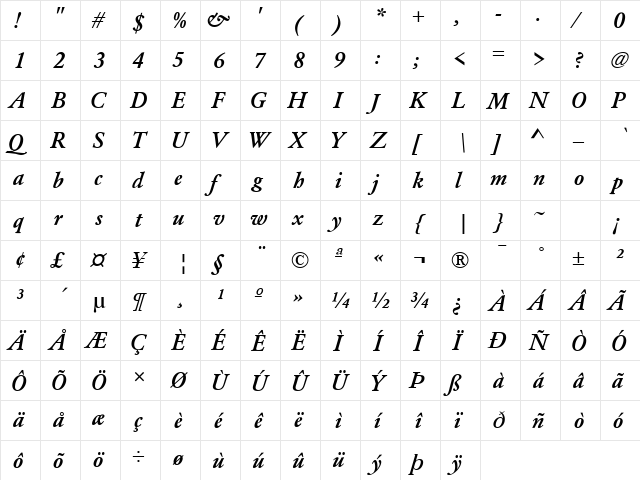
PP-Garamond Medium-Italic
Design Context for PP-Garamond Typeface
PP-Garamond offers clean, dependable letterforms without strong stylistic allegiance, making it a practical choice for designers who need flexibility. Its italic angle brings a sense of urgency and motion to the letterforms.
Pro Tip: Try PP-Garamond for annotation and caption copy alongside an upright companion — the contrast in angle creates a dynamic but ordered typographic system.